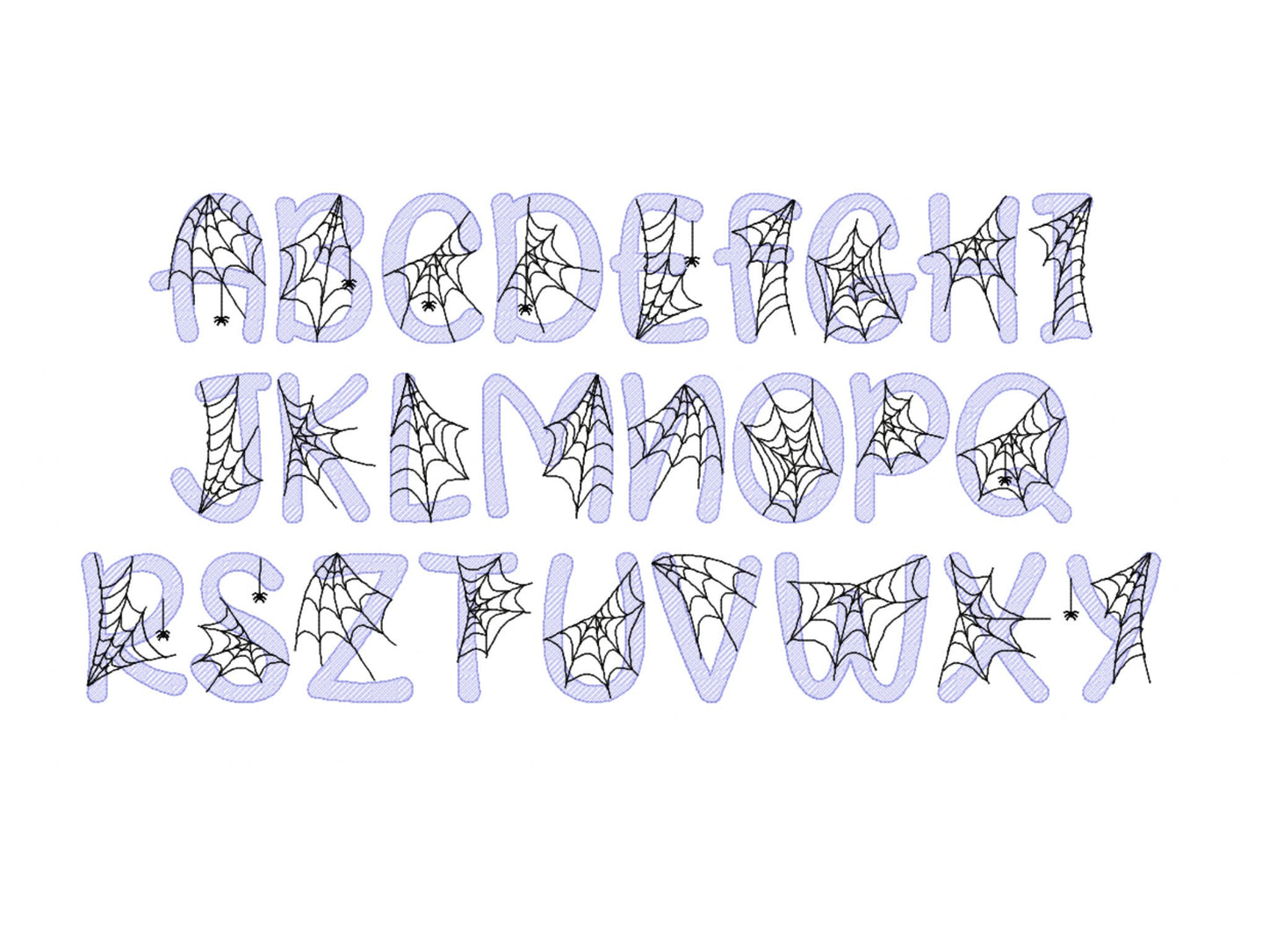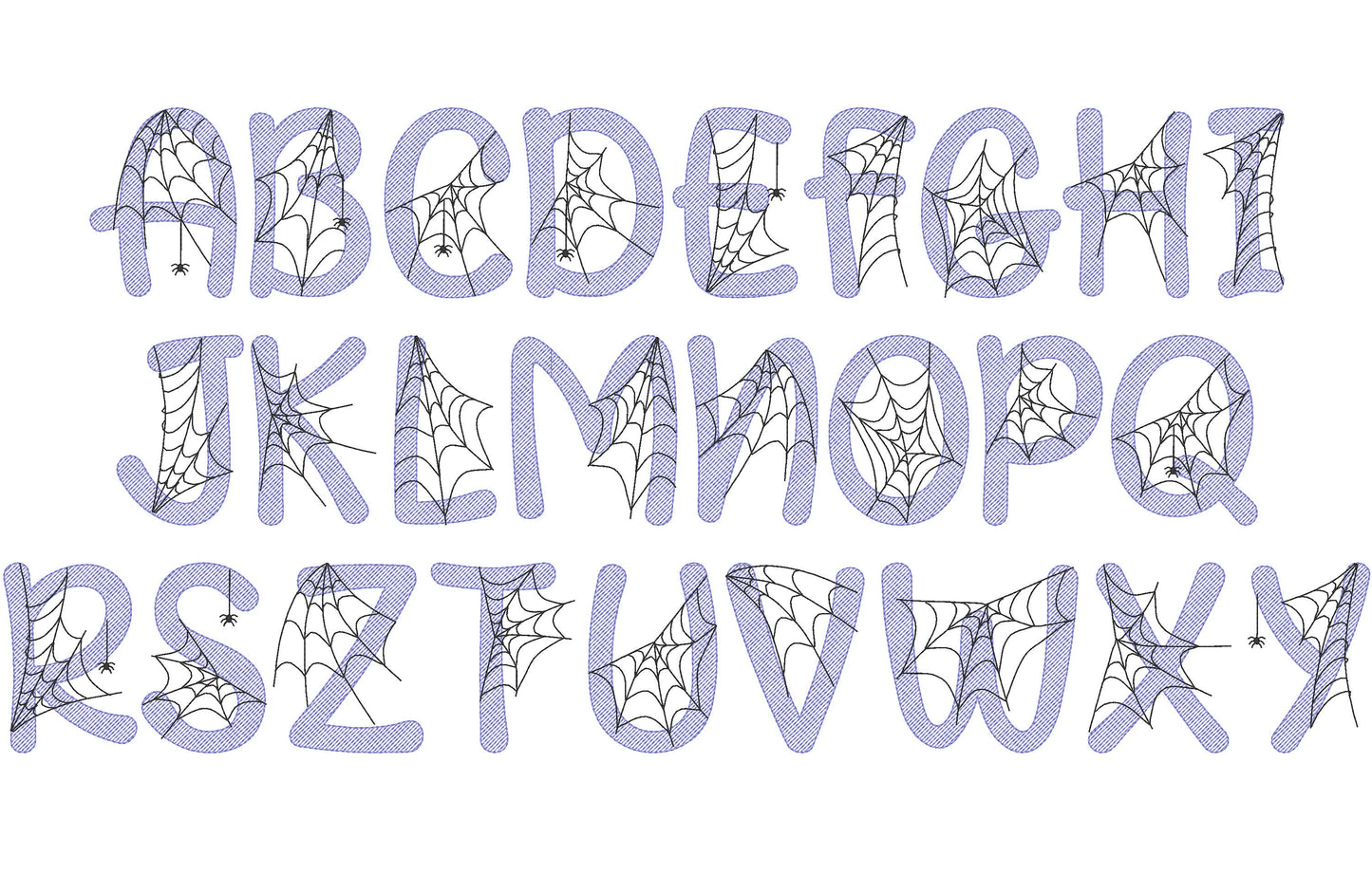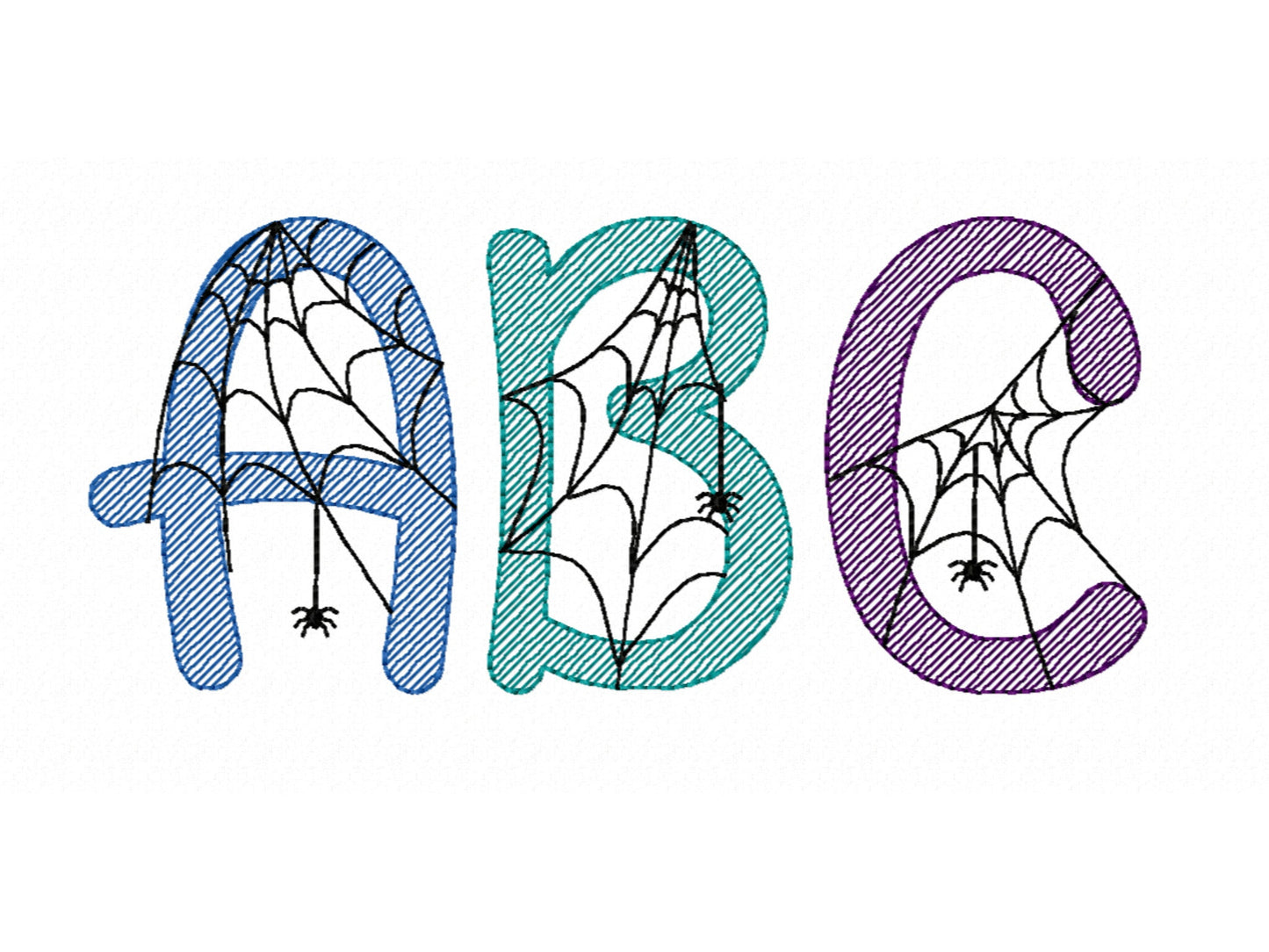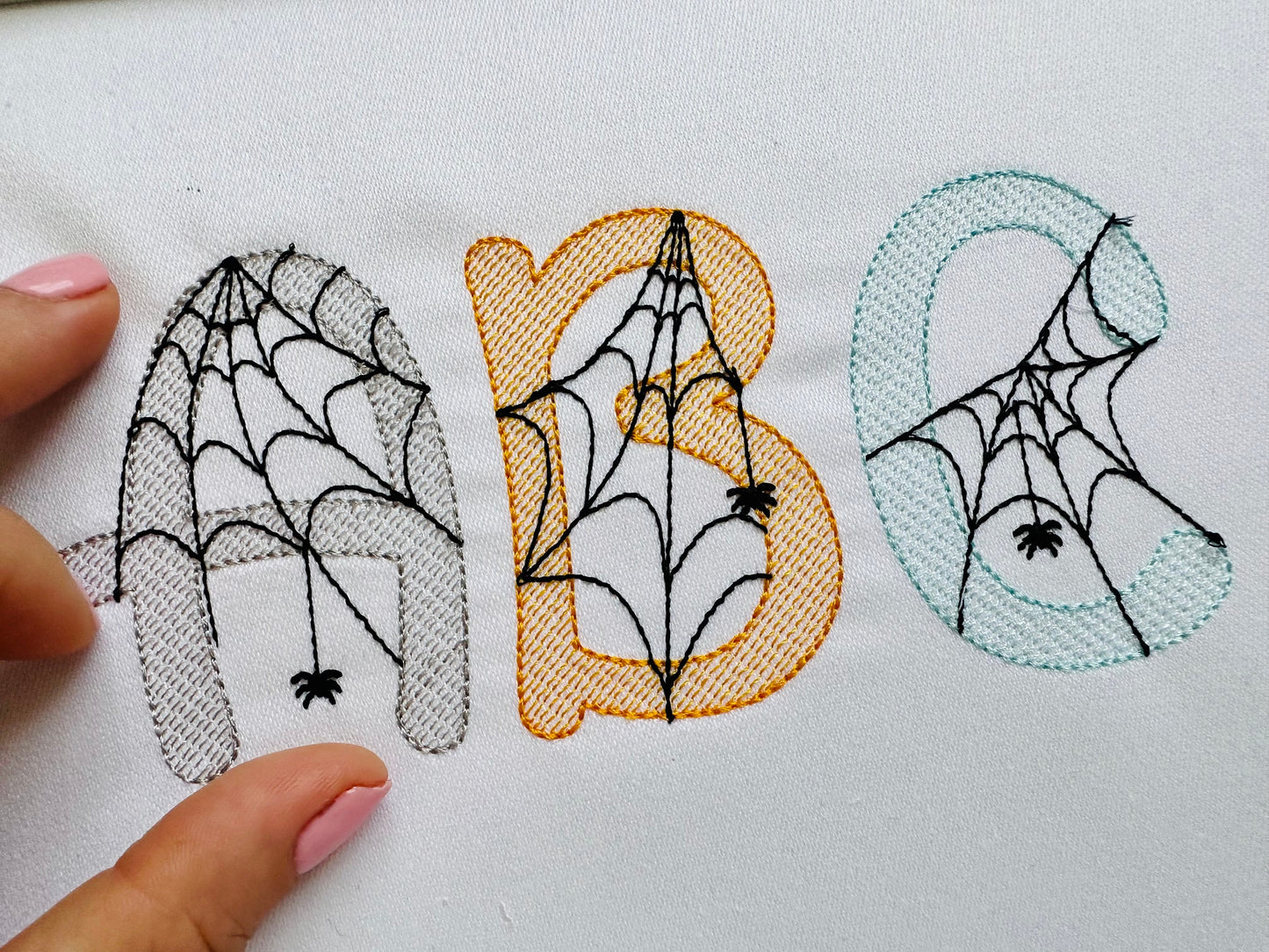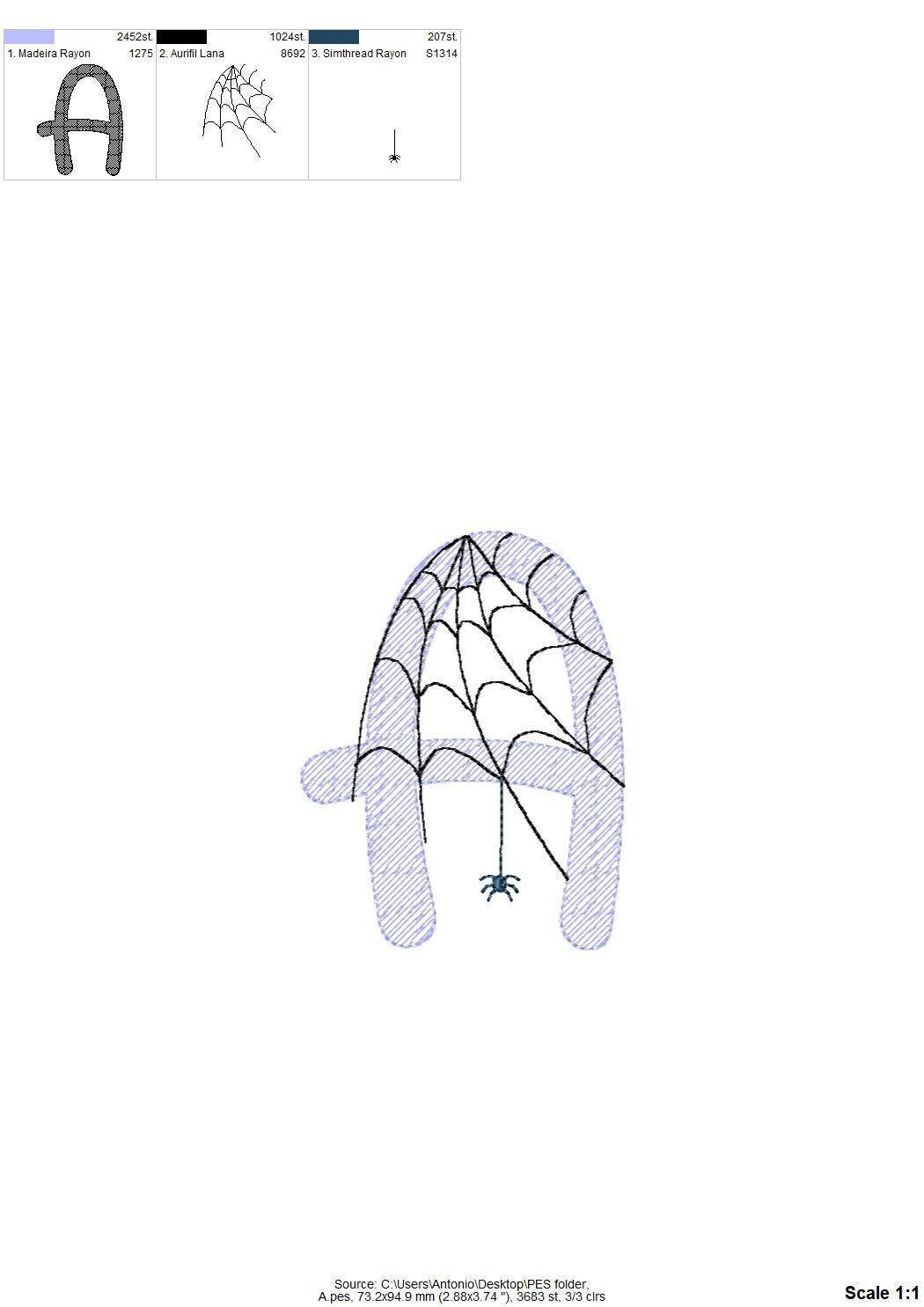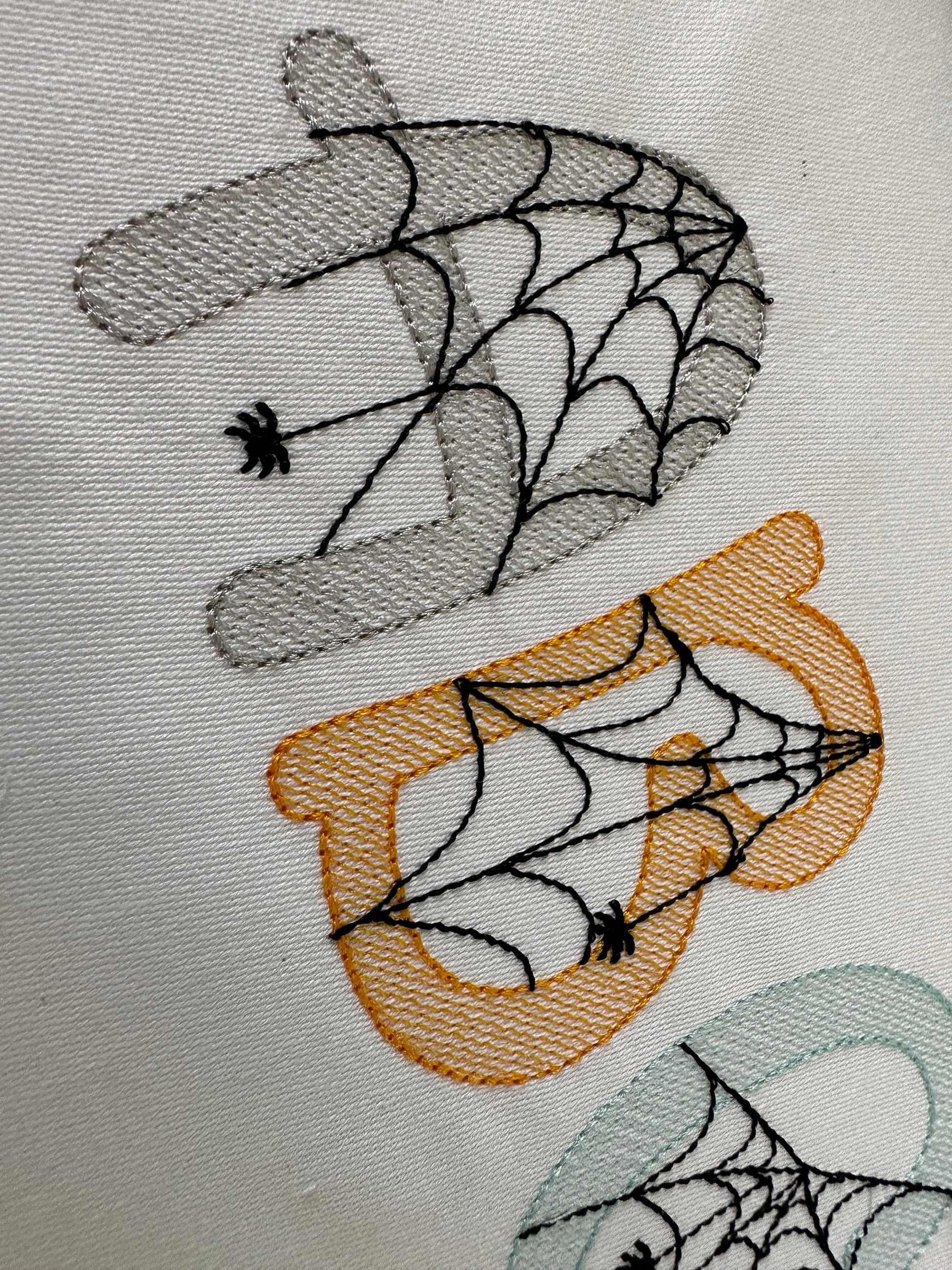
Spiderweb Font
Or click to open the linkA spooky spider web font in light stitch. Fun for Halloween shirts, trick-or-treat bags, pillows and decor.
Uppercase letters A to Z in ten sizes from 1.5 to 5.1 inches. The spider web is part of each letter and the fabric shows through; an add-on version puts a spider on every letter.
- Spider web Halloween font
- Uppercase A to Z
- 10 sizes, 1.5 to 5.1 in